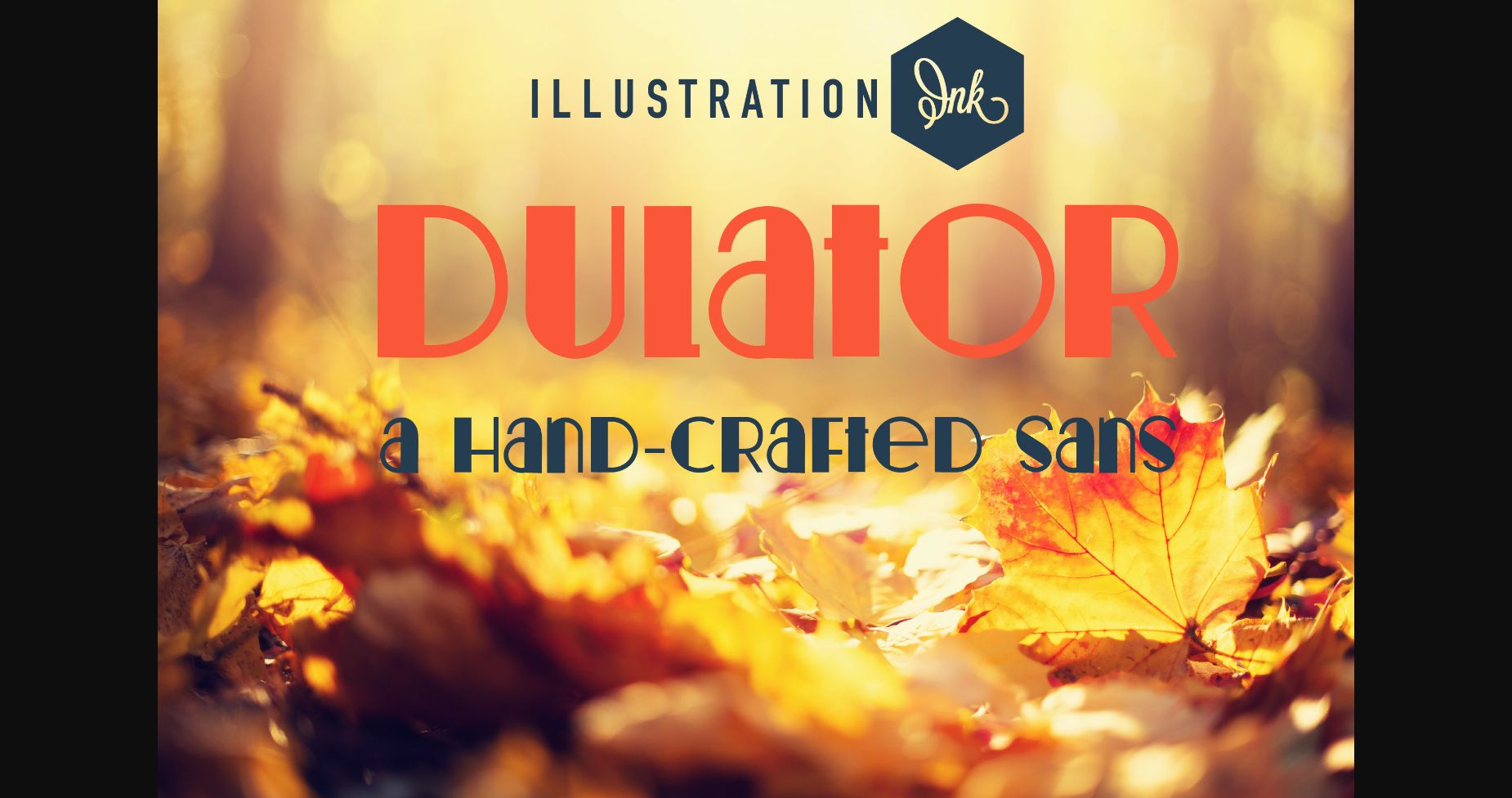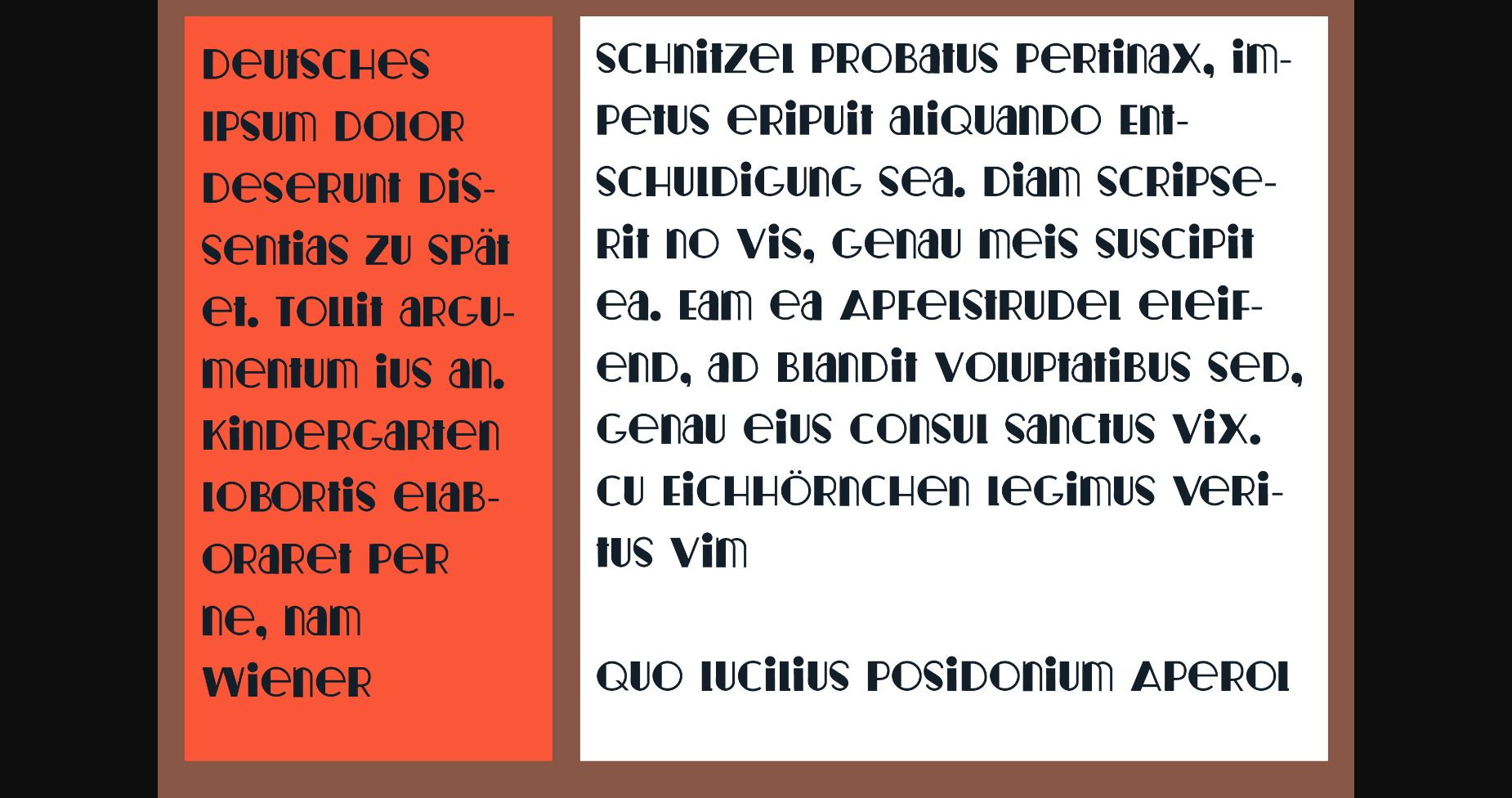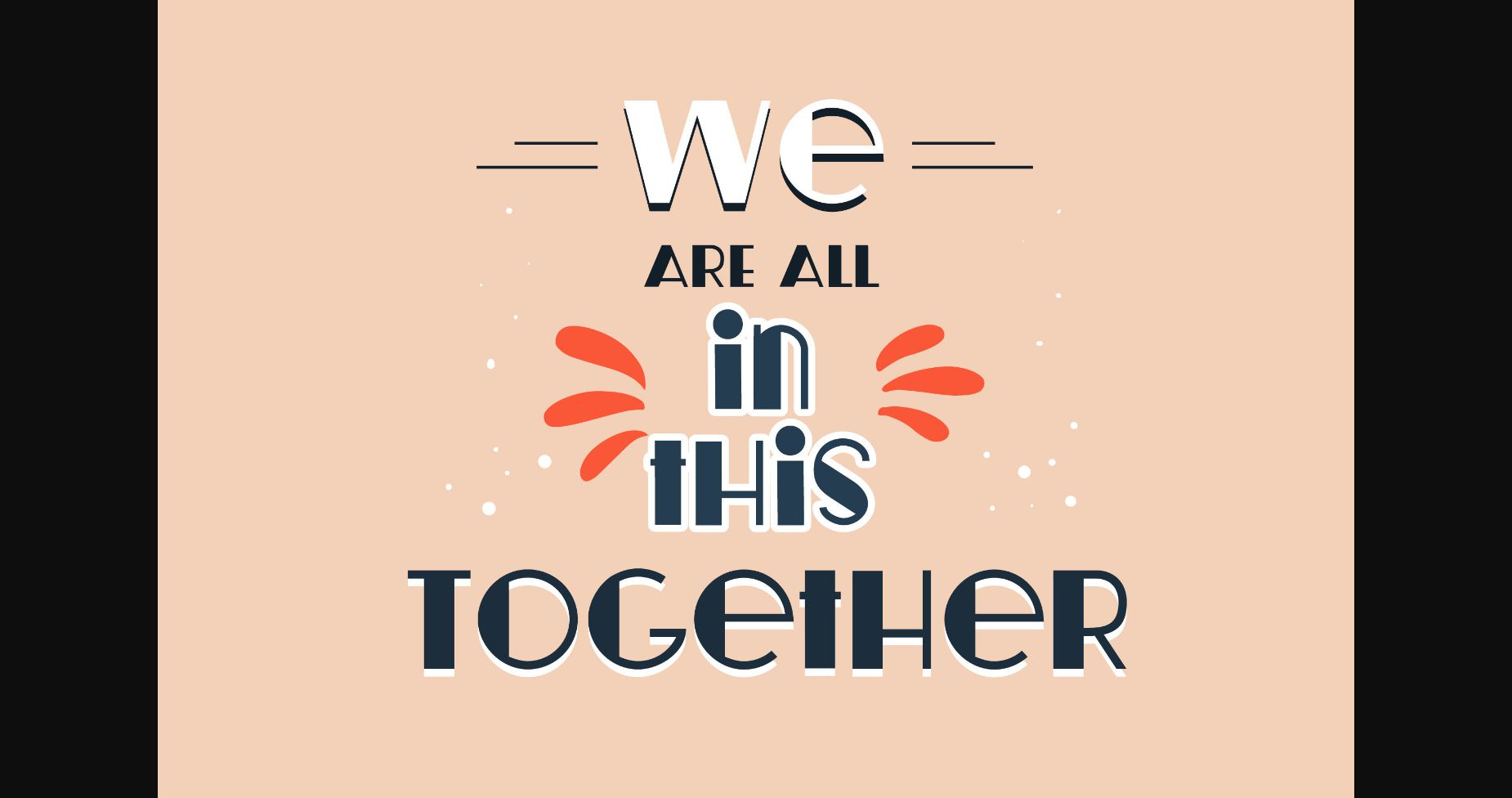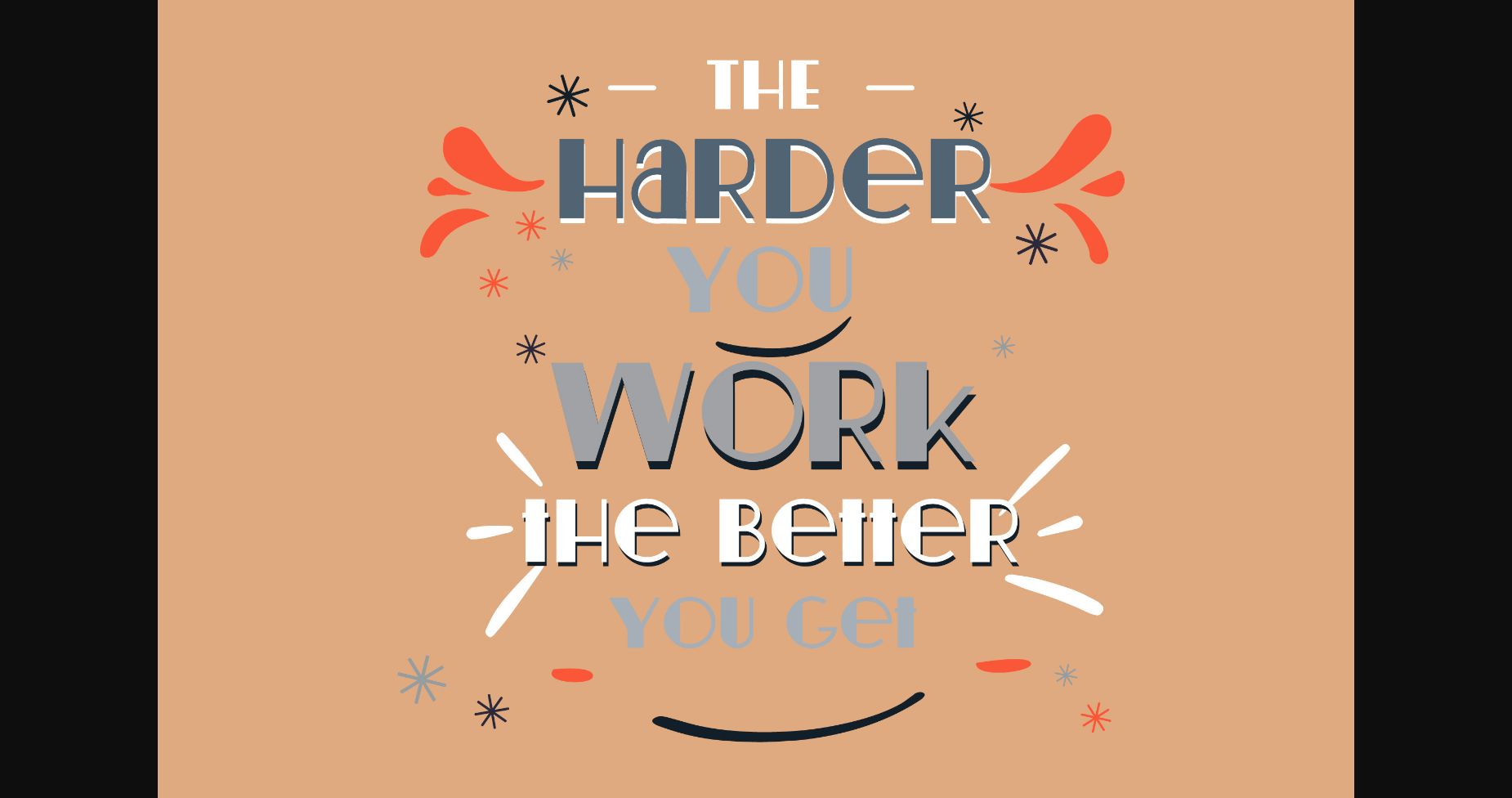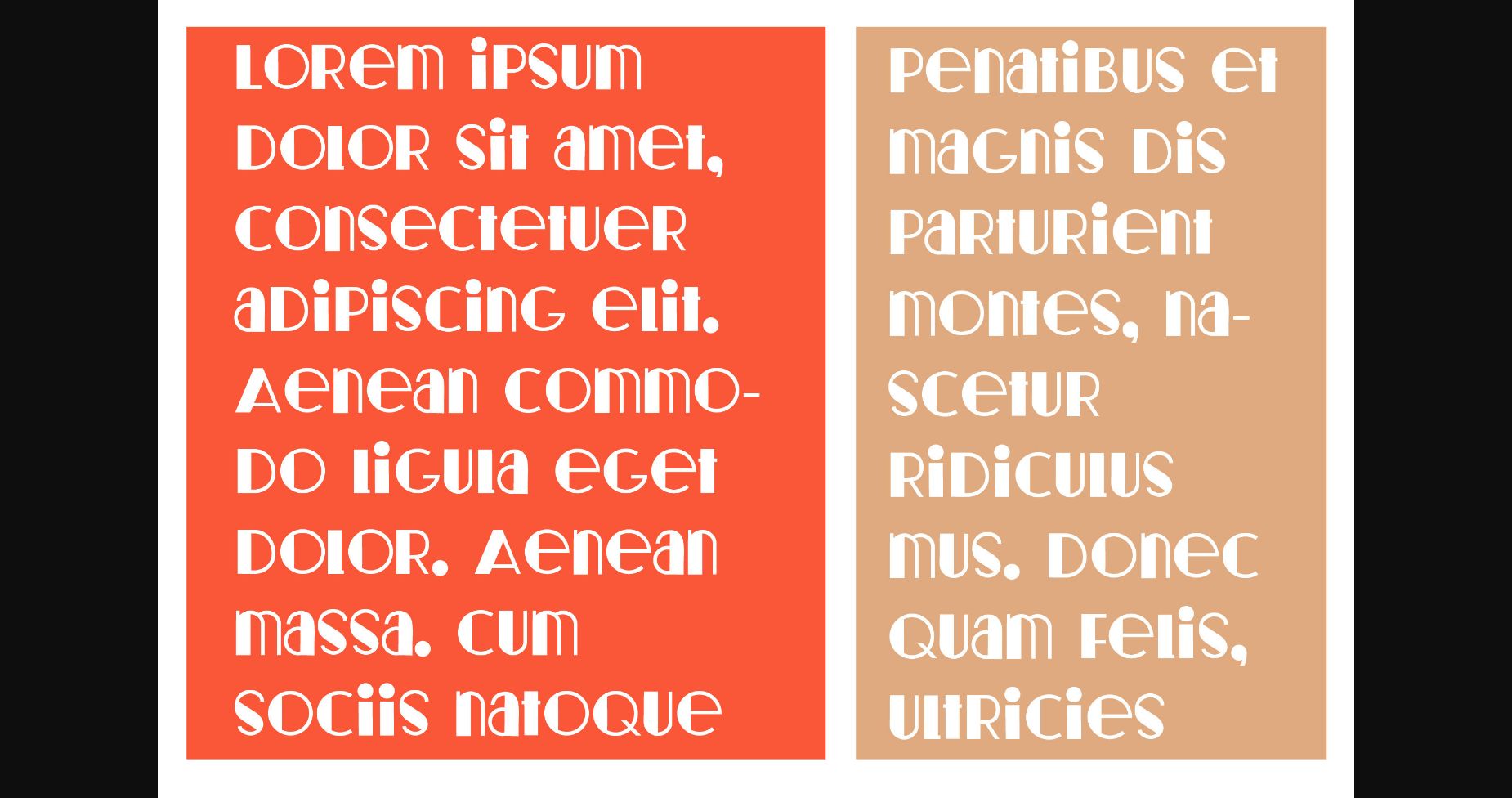
About Dulator Font
Dulator is a squat sans serif with a bit of a retro/art deco feel. No matter the topic, this font will be an incredible asset to your fonts’ library, as it has the potential to elevate any creation.